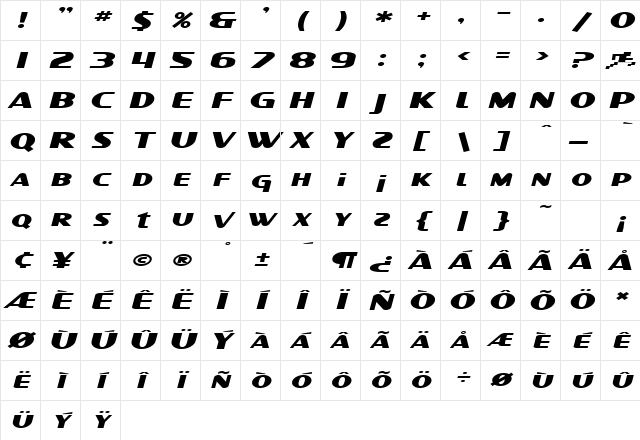
SF Intellivised Extended Italic
SF Intellivised Extended Family
Complete SF Intellivised Extended Italic glyph index. Displaying only characters natively supported by SF Intellivised Extended Italic font.
Design Context for SF Intellivised Extended
SF Intellivised Extended is a composed and adaptable typeface that performs quietly and consistently across a wide range of design contexts. The slanted form adds forward momentum and visual energy.
Pro Tip: Use SF Intellivised Extended for emphasis, pull quotes, and subheadings where its slanted energy can add rhythm to the layout.